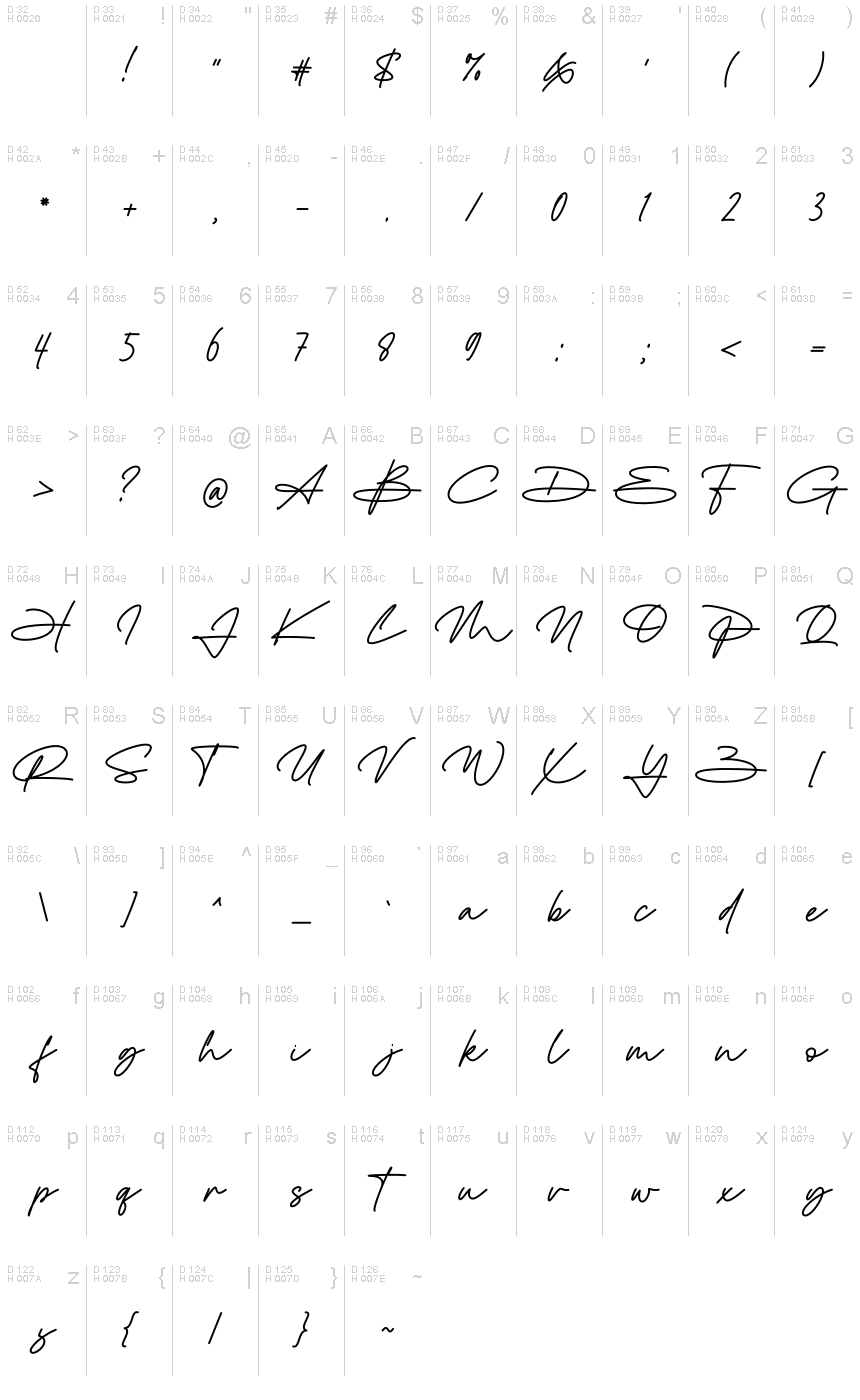
The Billion Monoline
The Billion Monoline font from The Billion family, designed by Lemonthe, is a nice handwritten typeface. This typeface is sophisticated and smooth, with light strokes and beautiful curves. The Billion Monoline is great for personal projects such as invitations, branding materials or any digital design that needs to feel more human. It’s also perfect for personal use; it’s free to download and has a unique look.